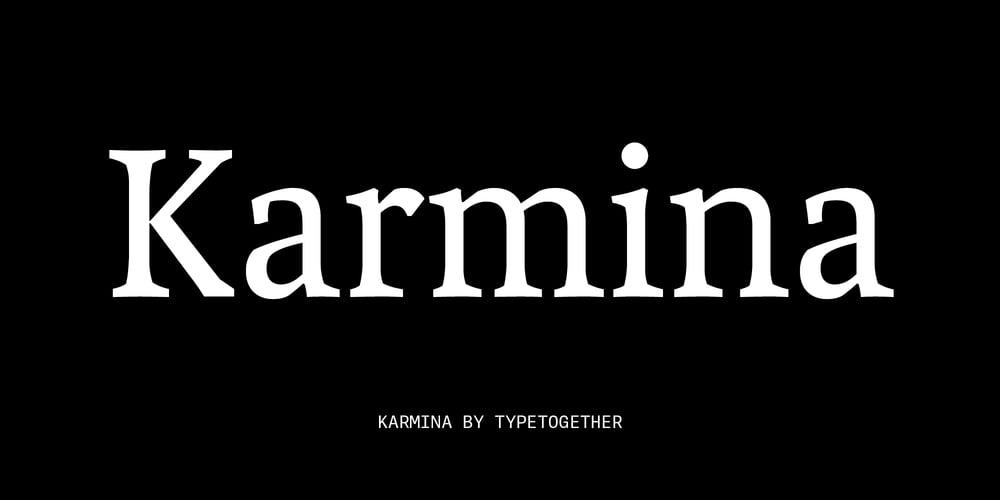
Karmina Font Family was designed by Veronika Burian, José Scaglione and published by TypeTogether. Karmina contains 5 styles and family package options. Karmina is a text typeface developed mainly for pocket books and budget editions. It was built to withstand the worst printing conditions: low quality papers, high printing speed with web presses and variations in the ink level of the printing press. Some of Karmina’s most representative features are the rather large serifs, intended to work perfectly in small reproduction sizes, the sharpness of the shapes, including some calligraphic reminiscences, and the large and yet graceful ink traps in the acute connections. Structurally, Karmina combines a significantly large x-height with relatively compressed letterforms. The result of these features grants Karmina outstanding legibility and economy. Karmina features four weights and 800 characters per weight, including small caps, discretionary ligatures, fractions and a complete range of numerals for every use. It also supports over 40 languages that use the latin extended alphabet. Karmina was selected in the text typography category at the Letras Latinas exhibition 2006 and won a merit in the European-wide ED-Awards competition 2007. Karmina Basic is a reduced version of Karmina. It is still an OT-font but without any particular features except of a set of ligatures, class-kerning and language support including CE and Baltic.